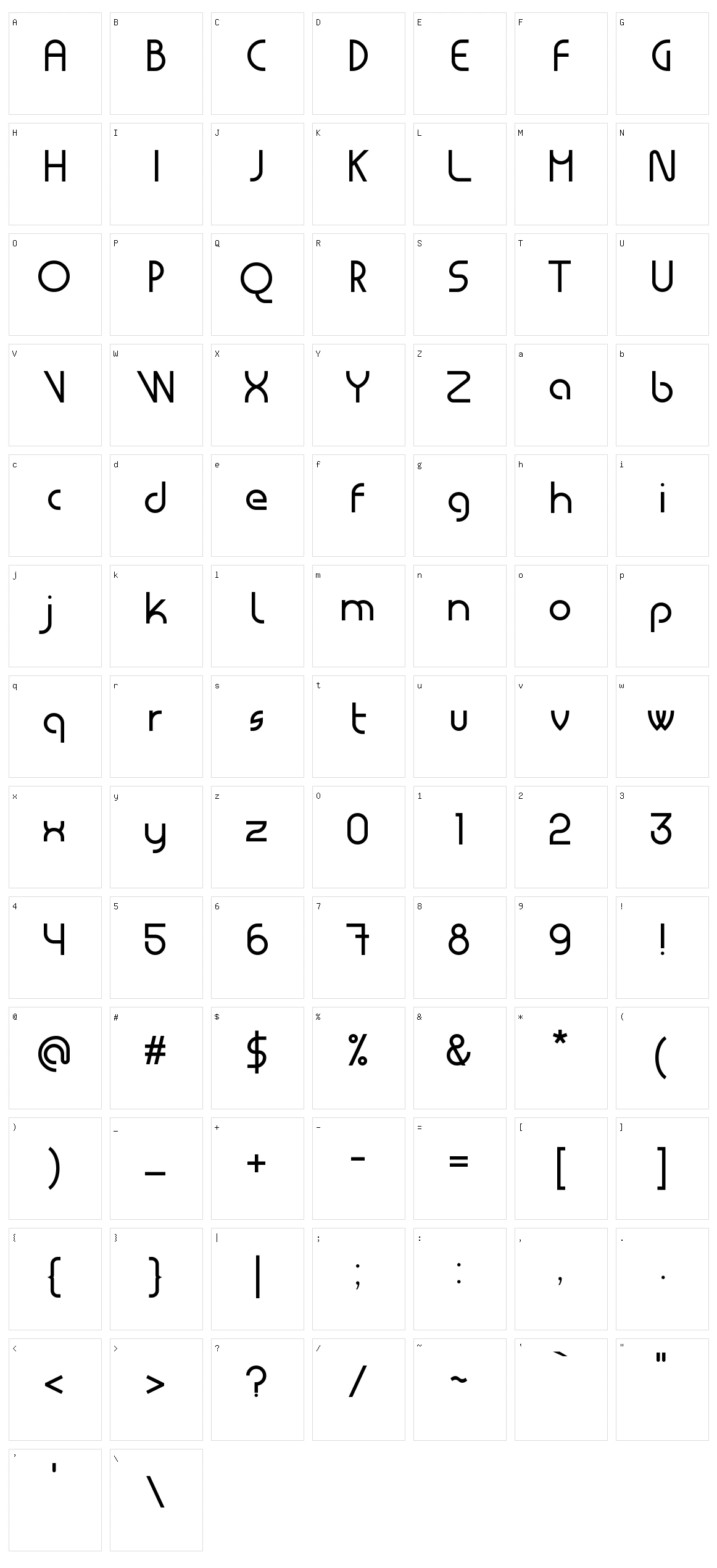
Masiode
Designed by: Khiro
* Masiode is a sans-serif typeface available in two weights: light and regular. *
* Masiode also has rounded version, these two versions had been submited on dafont.com only! *